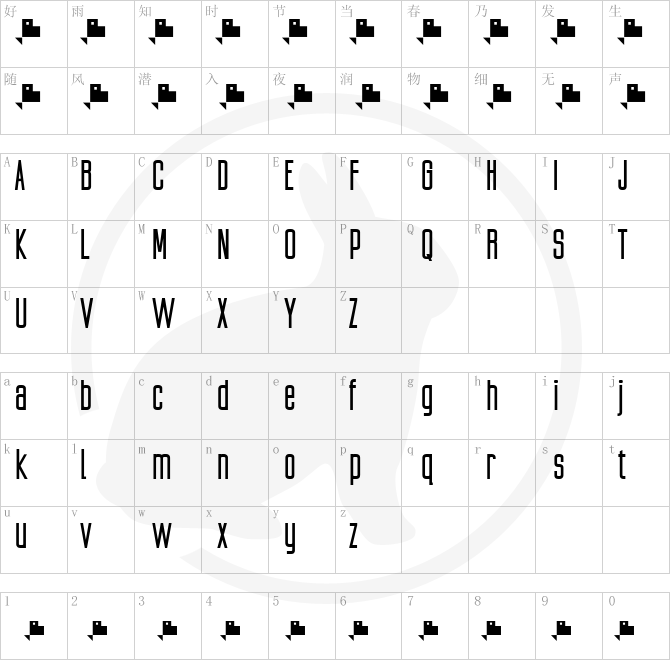
- Font Name:Ubicada Pro
Ubicada-Pro-Bold.ttf is a very beautiful artistic font, Ubicada-Pro-Bold.ttf is widely used in the design and printing of various books and pictures,Ubicada-Pro-Bold.ttf has a strong visual impact,Ubicada-Pro-Bold.ttf is a commonly used font in newspapers, magazines and books, and is used in posters, e-commerce Poster design, store design, logo design, font design and other fields.Ubicada-Pro-Bold.